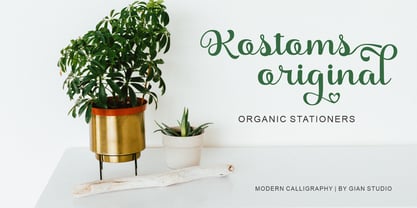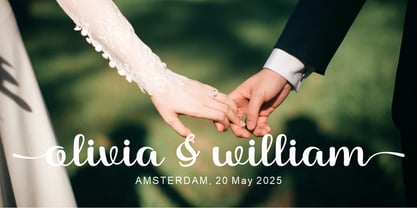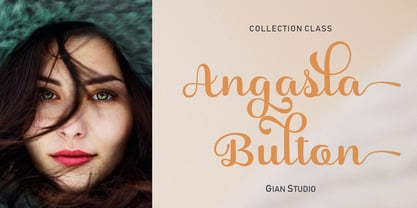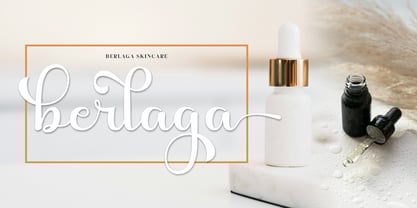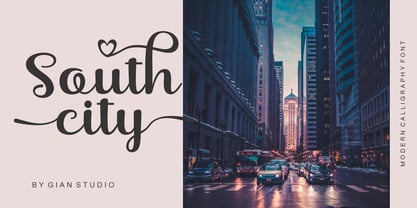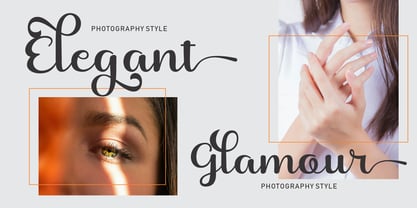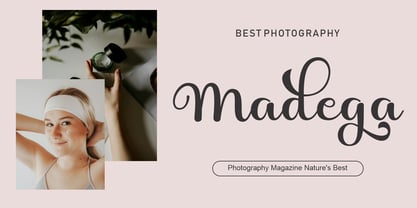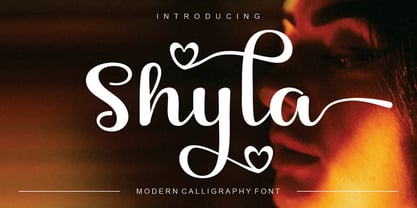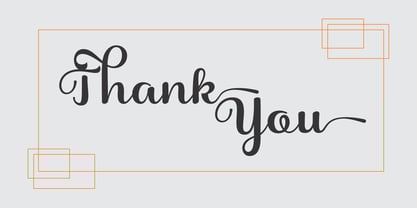
Shyla
by Gian Studio
The Shyla Font Family was designed by Yusliana M Isa and published by Gian Studio. Shyla contains 1 styles.
Shyla is a modern script font featuring a classic and elegant touch. clean, feminine, sensual, glamorous, simple and very easy to read, thanks to its many beautiful letter joints. I also offer a number of decent stylistic alternatives for some of the letters. Classic style is very suitable to be applied in various formal forms such as invitations, labels, restaurant menus, logos, fashion, make up, stationery, novels, magazines, books, greeting cards / weddings, packaging, labels or all kinds of advertising needs. . . . . .
Designers: Yusliana M Isa
Publisher: Gian Studio
Foundry: Gian Studio
Design Owner: Gian Studio